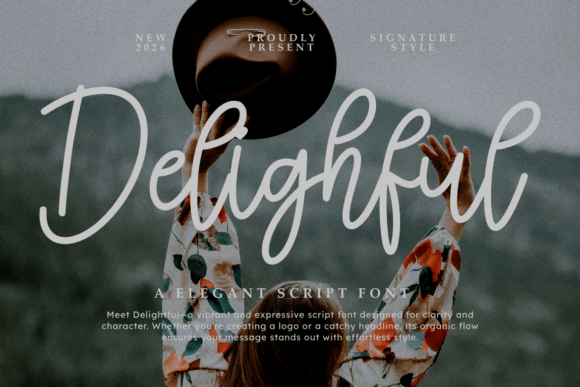
Unlock the Magic of Delighful Font
Remember the thrill of designing a new logo, or crafting a wedding invitation that captures the essence of the special day? For many of us, it’s those moments that make all the hard work worth it. And what makes those moments truly unforgettable is the right font – one that adds a touch of elegance, warmth, and personality to our creations.
Enter Delighful Font, a beautiful script font designed to bring a natural, handwritten feel to your designs. With its smooth curves and balanced strokes, Delighful Font is the perfect choice for branding, logos, packaging, and more. Whether you’re a seasoned designer or just starting out, this versatile font is sure to become a trusted companion in your creative journey.
- Unique Characteristics: Delighful Font features a unique blend of modern and vintage elements, with intricate details and subtle texture, making it perfect for designs that require a touch of elegance and sophistication.
- Kerning and Ligatures: The font features advanced kerning and ligature pairs, ensuring that characters pair perfectly together, resulting in a professional and polished look.
Delighful Font Review
At first glance, Delighful Font ✨ catches the eye with its playful and whimsical design. The font is perfect for adding a touch of personality to your branding, marketing materials, or even digital products. I appreciate the versatility of this font, which can be used for both formal and informal applications.
One of the standout features of Delighful Font is its wide range of styles and weights. This allows designers to mix and match different elements to create a unique visual identity. Additionally, the font is highly customizable, making it easy to adjust the size, color, and spacing to suit your needs.
- Playful and whimsical design ✨
- Wide range of styles and weights
- Perfect for branding, marketing materials, and digital products
- ⚠️ Limited support for certain languages
- ⚠️ Not ideal for long blocks of text, as it can become visually overwhelming
Overall, I’m impressed with Delighful Font’s potential and versatility. However, its limitations should be carefully considered before making a final decision. With some strategic use, Delighful Font can elevate your design and leave a lasting impression.
Delighful Font is ideal for use in creative projects, such as:
- Food and drink menus
Delighful Font’s unique and playful design makes